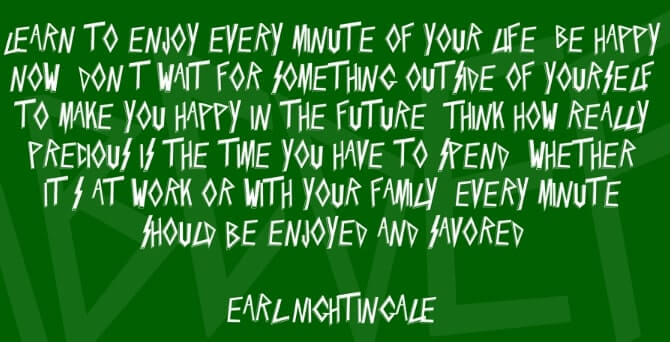
Slayer Regular Font
The Slayer Regular Font is a great choice for logos that have a geometric vibe. It is available in 4 unique styles, including regular, bold, and semi-bold.
A font fashion designer came up with this design font within the 1800s, and the font has a prestigious record. It turned into designed in 1990 as a sans serif and comes in ten exclusive styles.